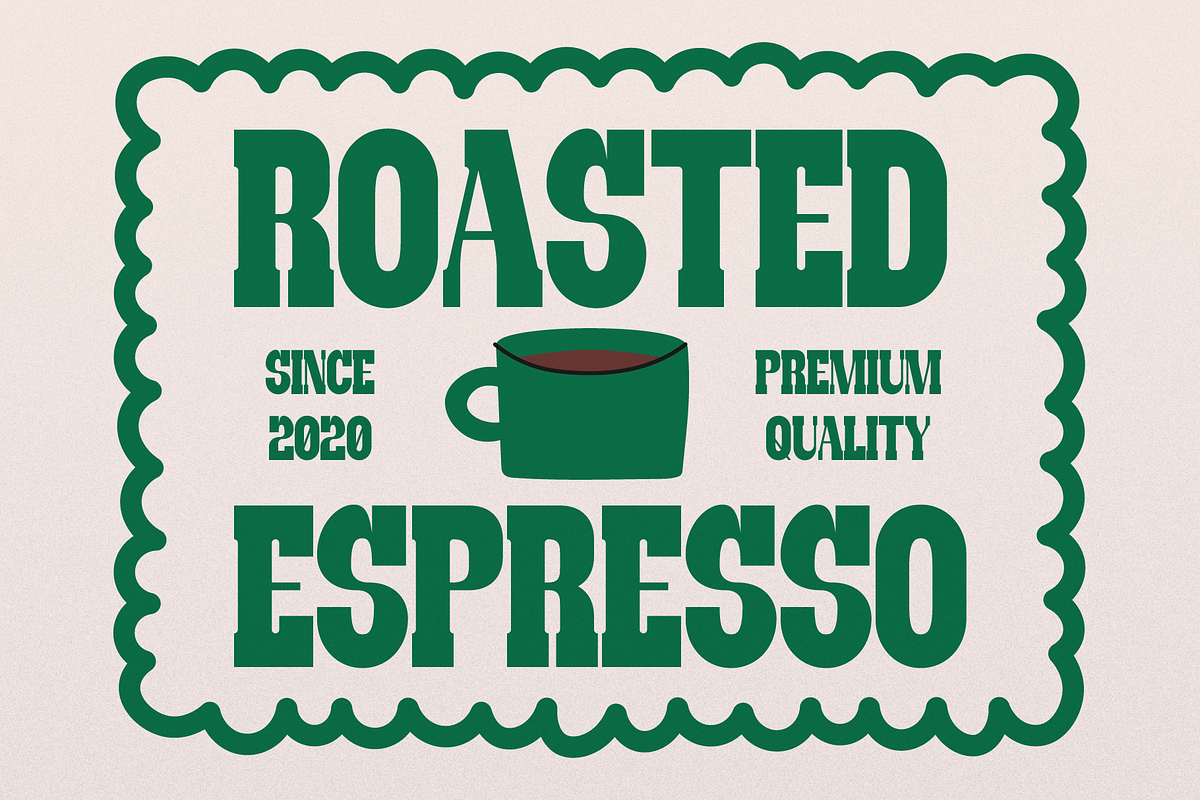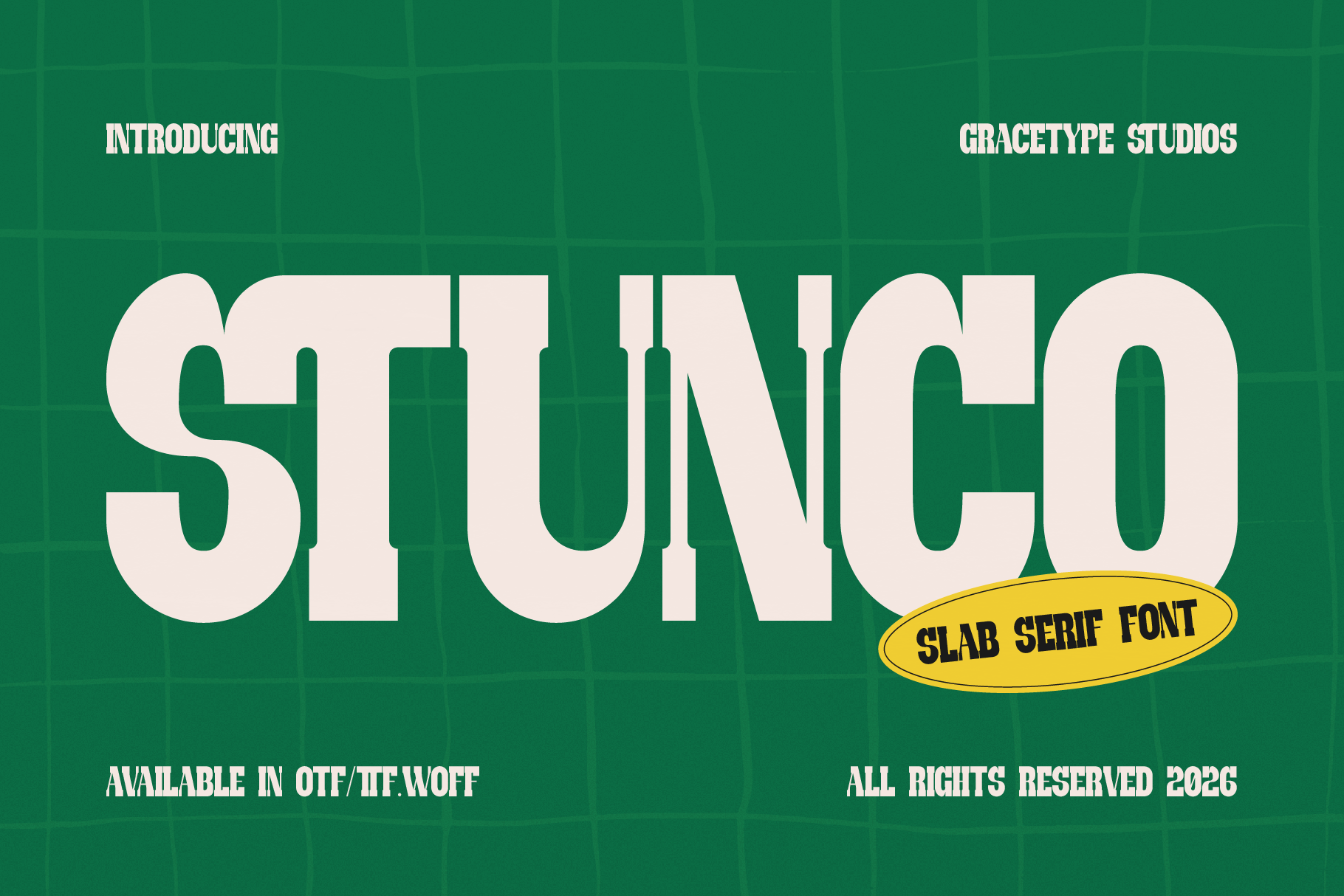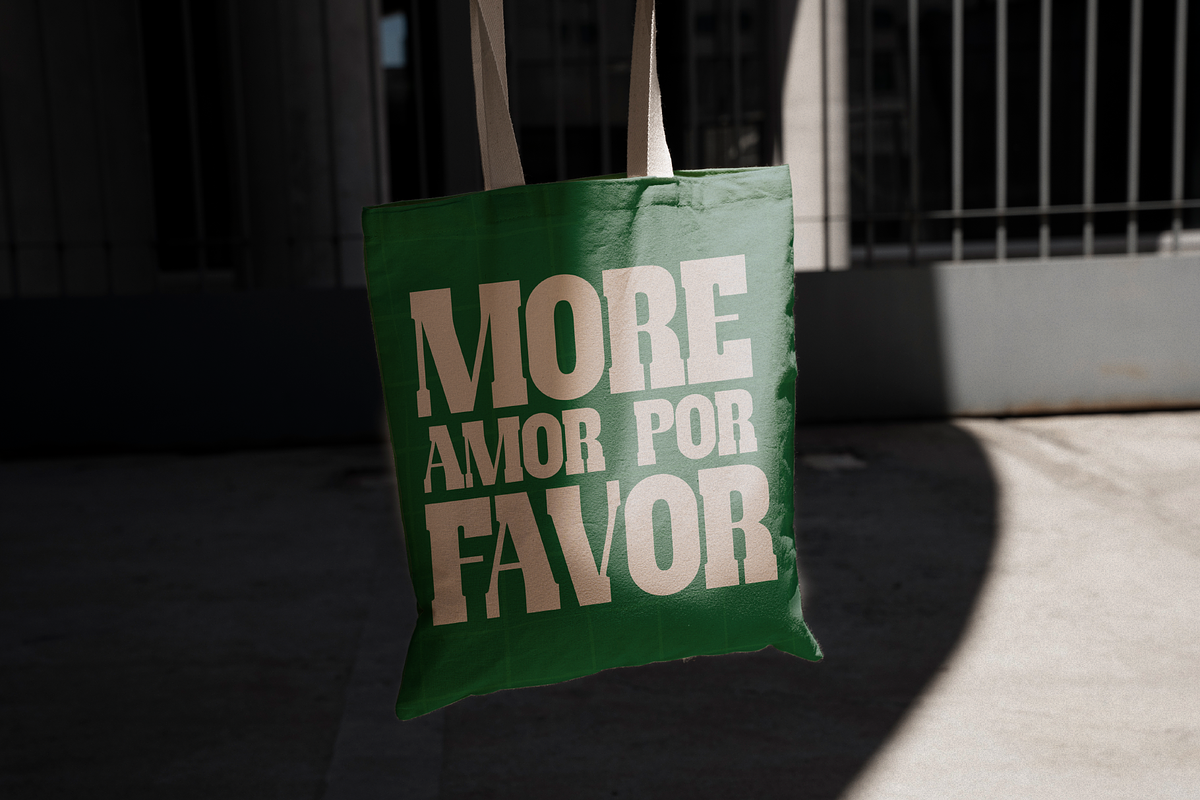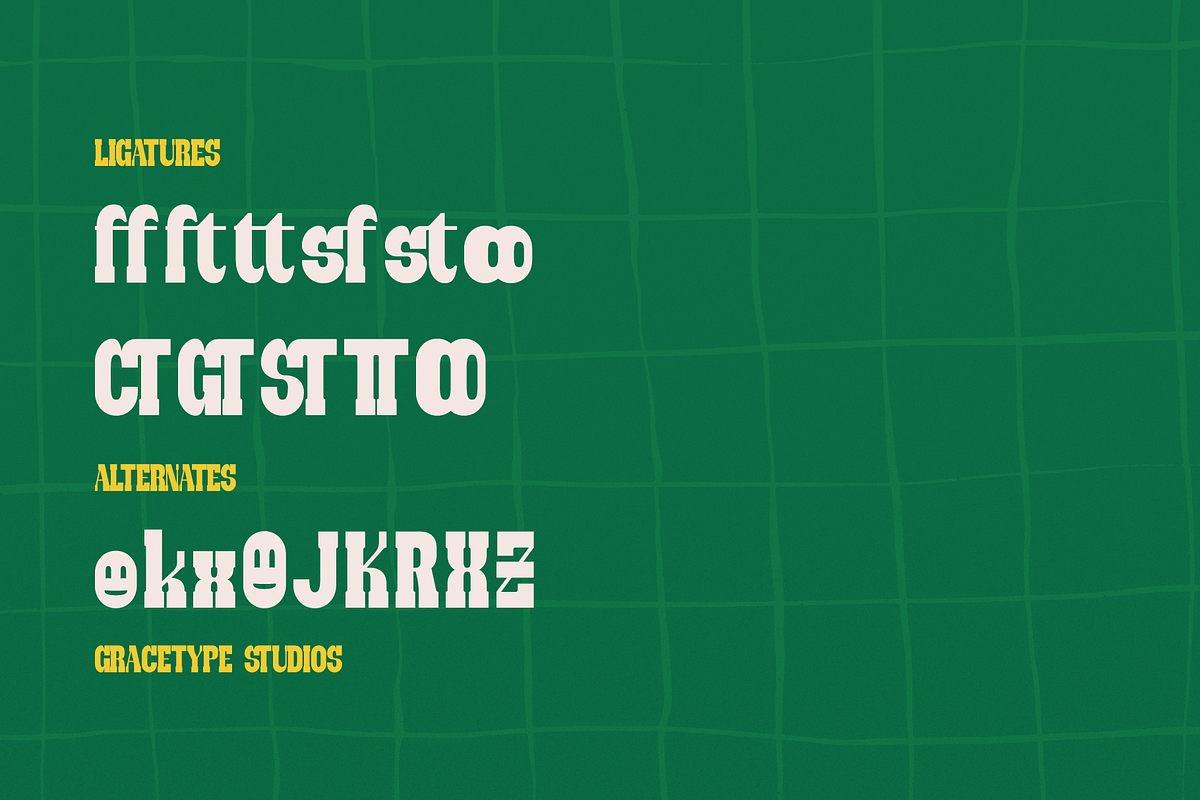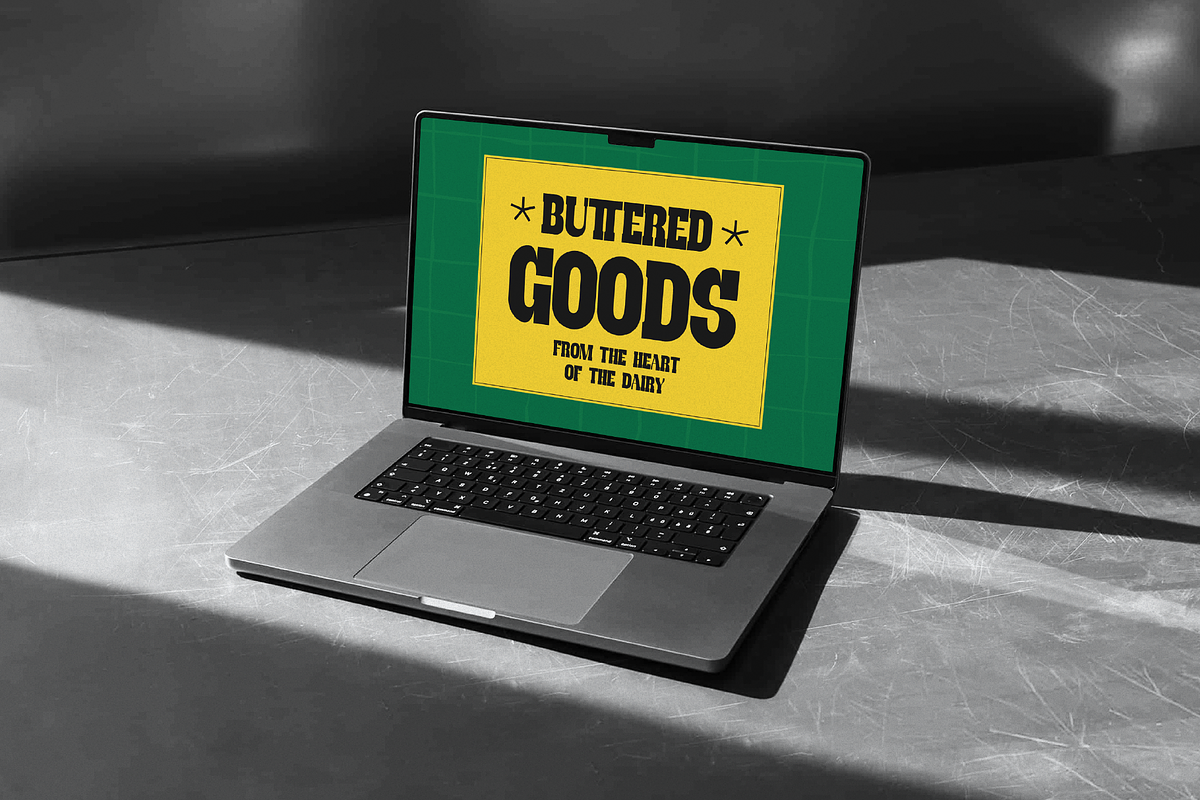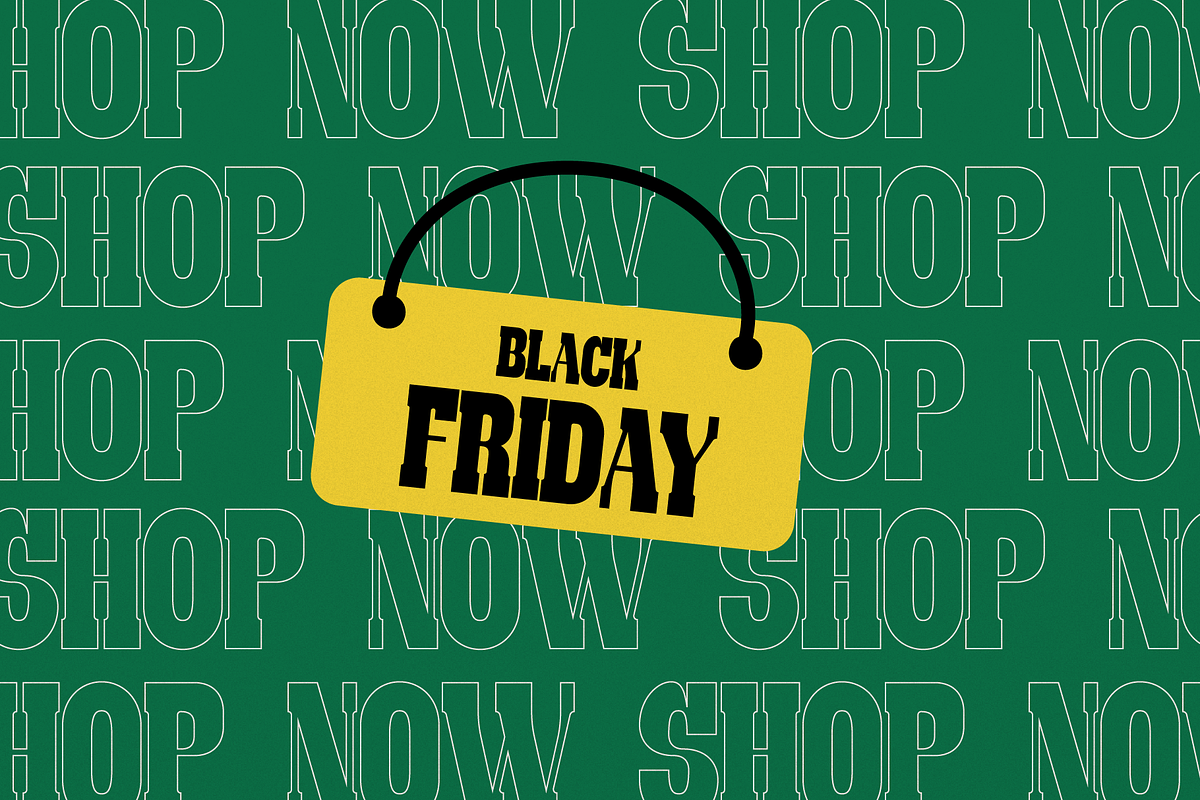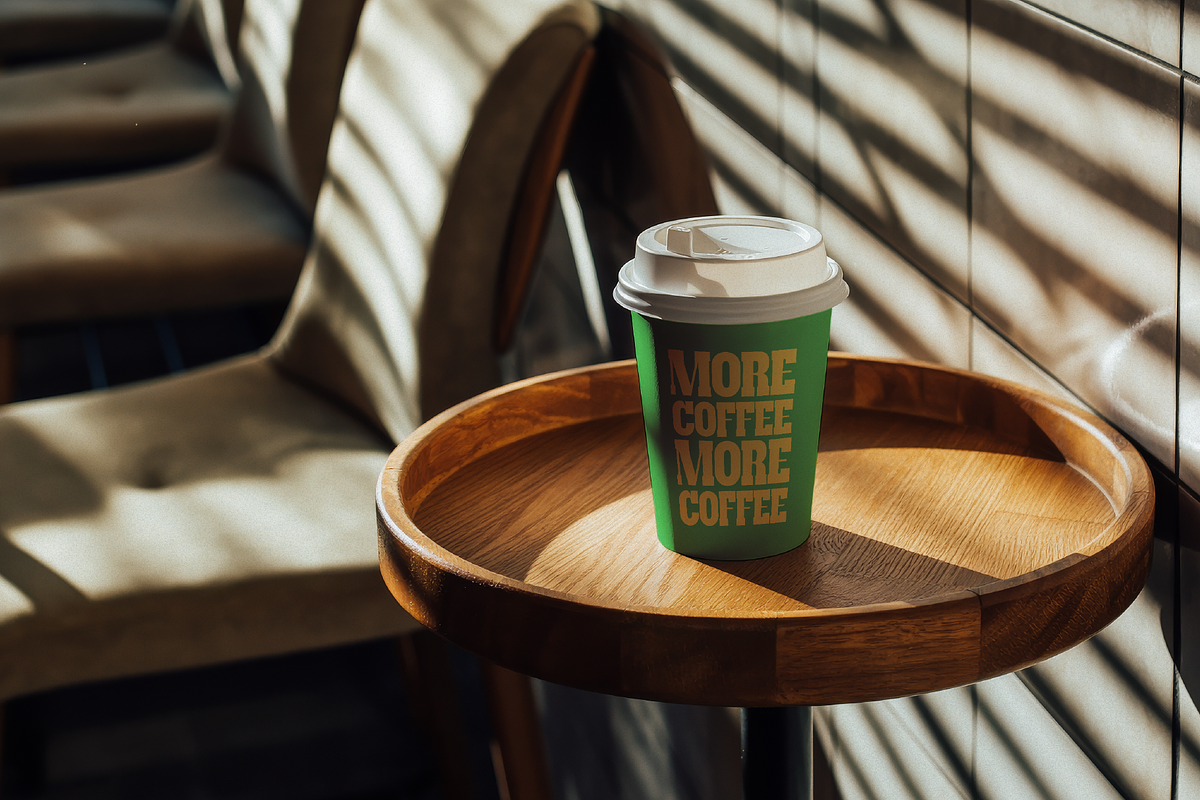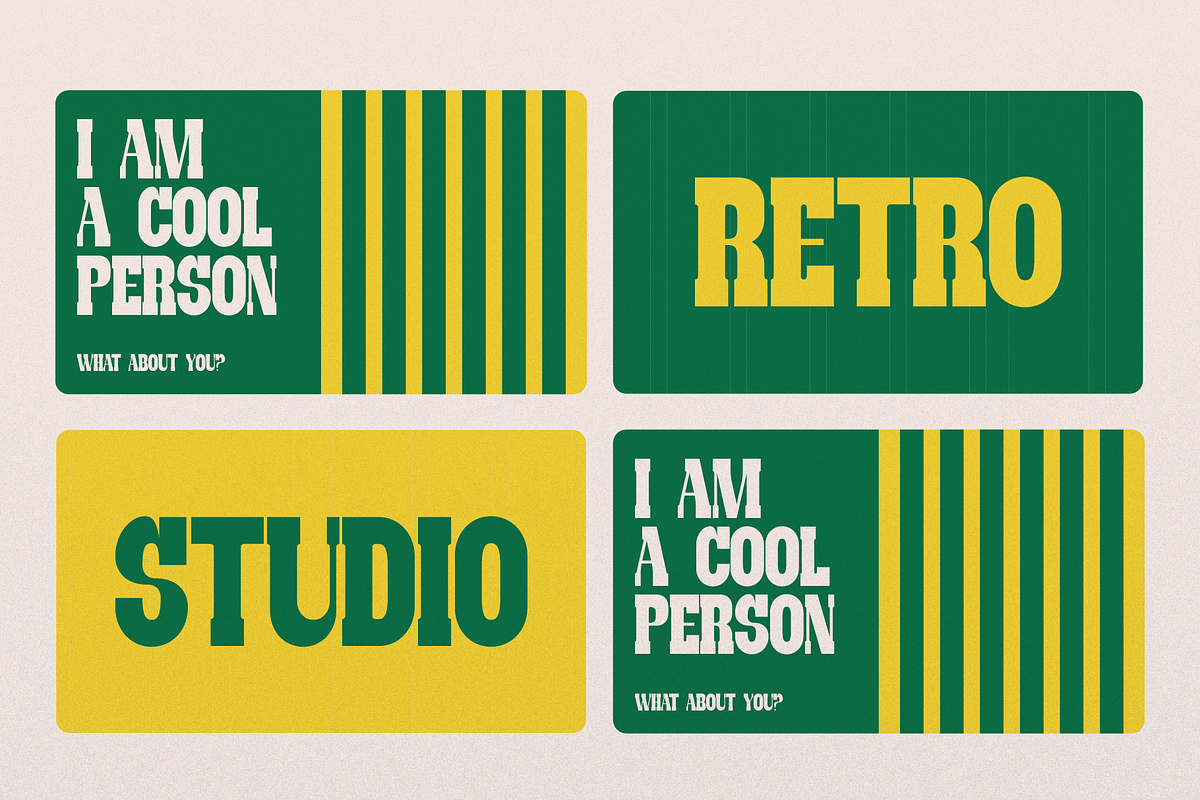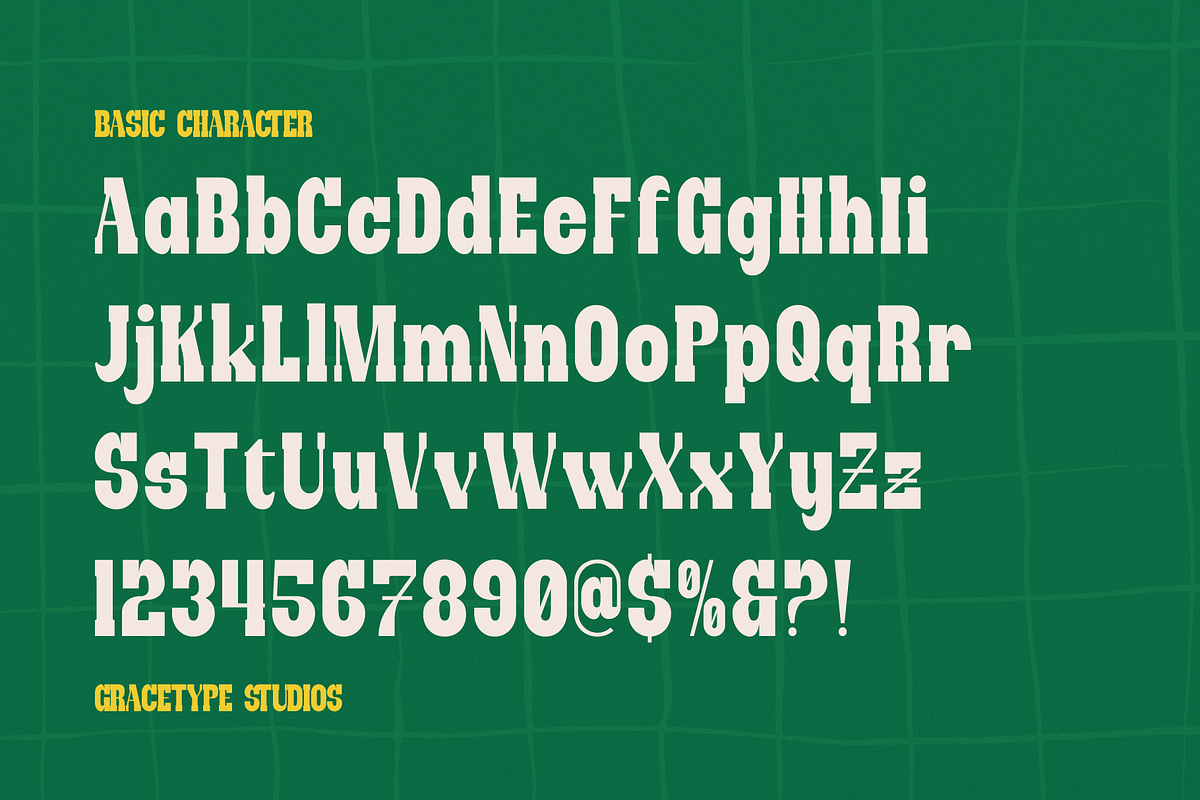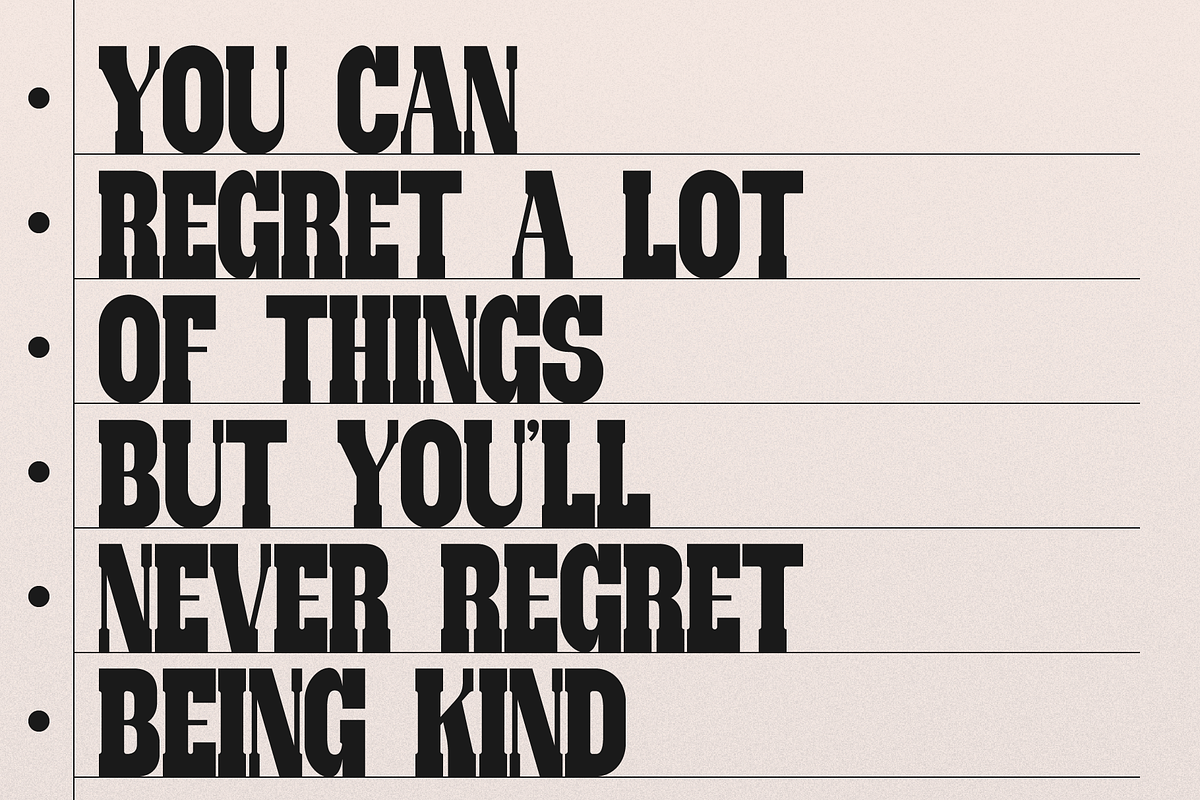
Stunco | Slab Serif Font
Stunco | Slab Serif Font, from Gracetypestudio, suitable for any projects such as: logos, branding projects, homeware designs, product packaging, mugs, quotes, posters, shopping bags, t-shirts, book covers, name card, invitation cards, greeting cards, label, photography, watermark, special events, and all your other lovely projects that need a Slab Serif taste.
Standard glyphs
Alternate and Ligature